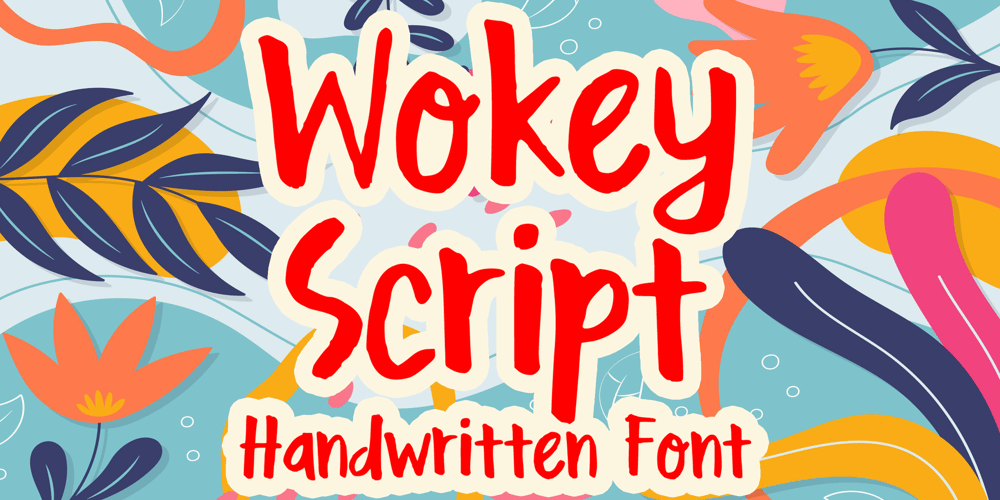
Wokey Script Font Family was designed by Gabriel Valentinus and published by Mvmet. Wokey Script contains 1 styles and family package options. Wokey Script is a fun, playful and modern handwritten font. It will elevate a wide range of design projects to the highest level. You can use this font for many design ideas such as stickers, t-shirt designs,merchandise designs, amazing logo designs, magazine or book covers, comics, cartoon drawings, daily typing, and many more. This font will add a super cool touch to your designs!